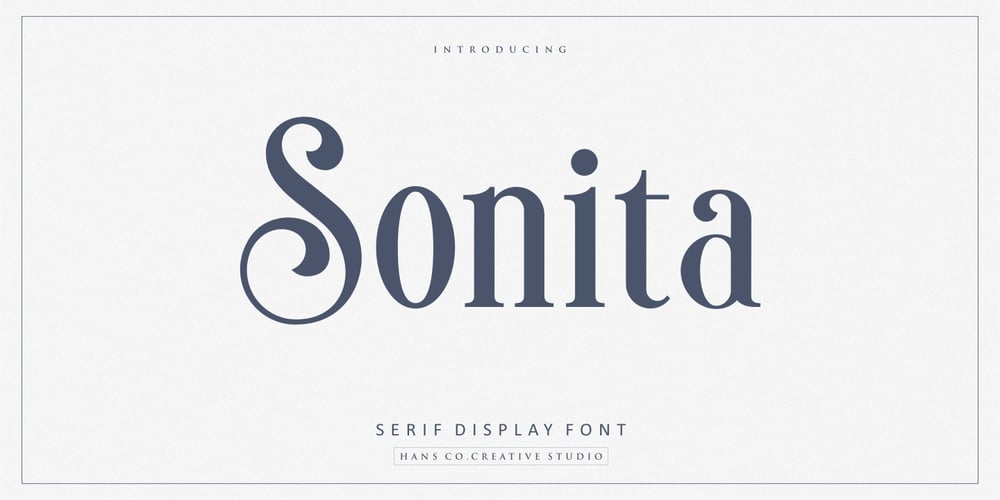
Sonita Font Family was designed by Burhan Afif and published by HansCo. Sonita contains 1 styles and family package options. Sonita is an elegant serif display font designed with lovely circle tails to create a classy feeling. It perfectly represents a classic yet modern style. This font is perfect for elegant logo design, packaging or invitation cards. Enjoy!